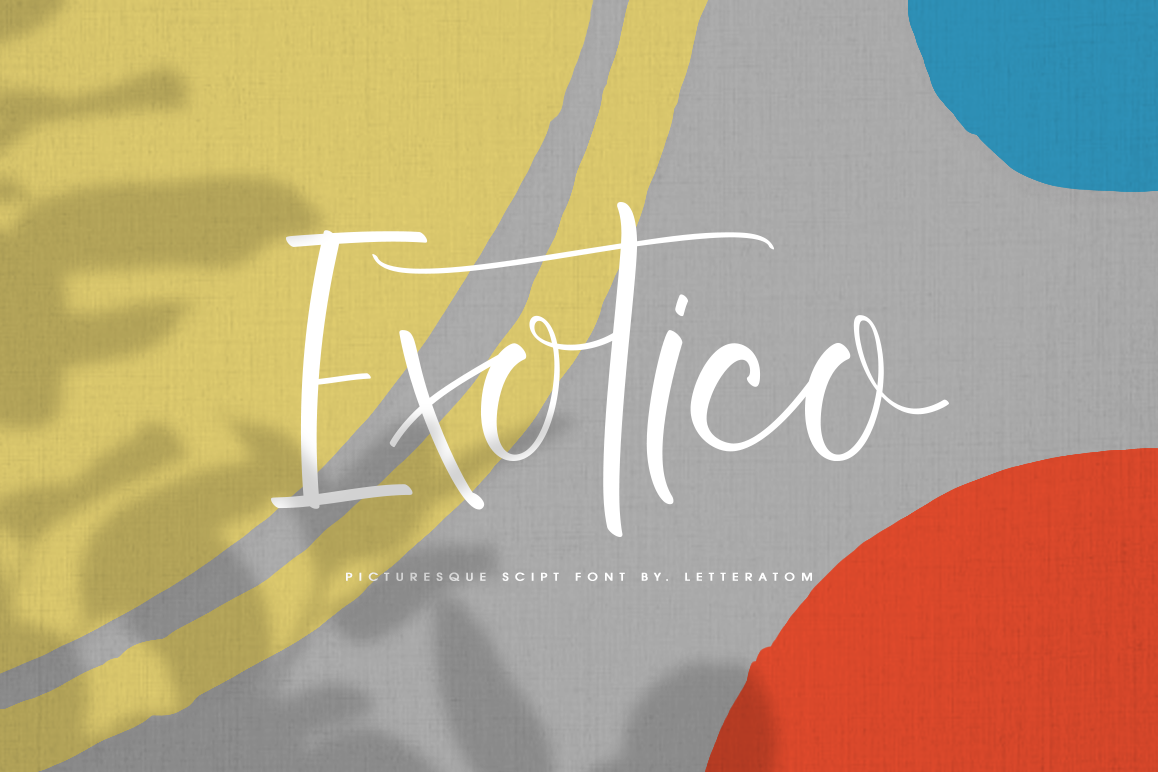
Exotico
Exotico is special in that one word can be written in a million different ways. With a picturesque and exotic touch, it will give a new feel for all your design needs.
• Contextual Alternates
• Multilingual support ÀÁÂÃÄÅ?Ç?ÈÉÊË?ÌÍÎÏÐÑ??ÒÓÔÕÖØÙÚÛÜ?ŠŸÝ??Žßàáâãäåçèéêëìíîïðñòóôõöøùúûüýÿ